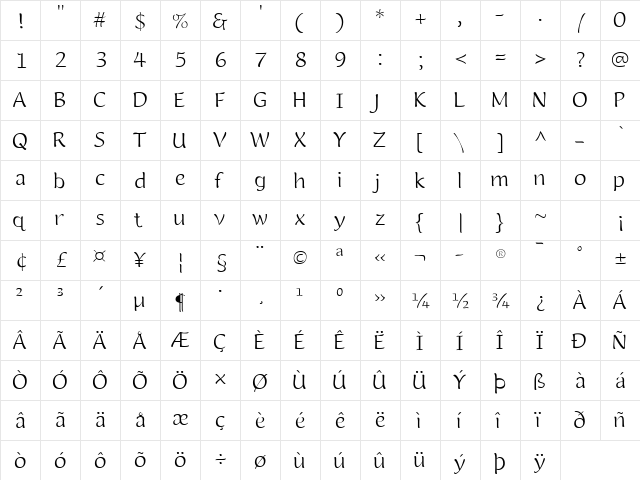
Ozme Regular Font Preview
Ozme Regular
Ozme Regular Font Details
Design Context for Ozme Typeface
Ozme offers clean, dependable letterforms without strong stylistic allegiance, making it a practical choice for designers who need flexibility.